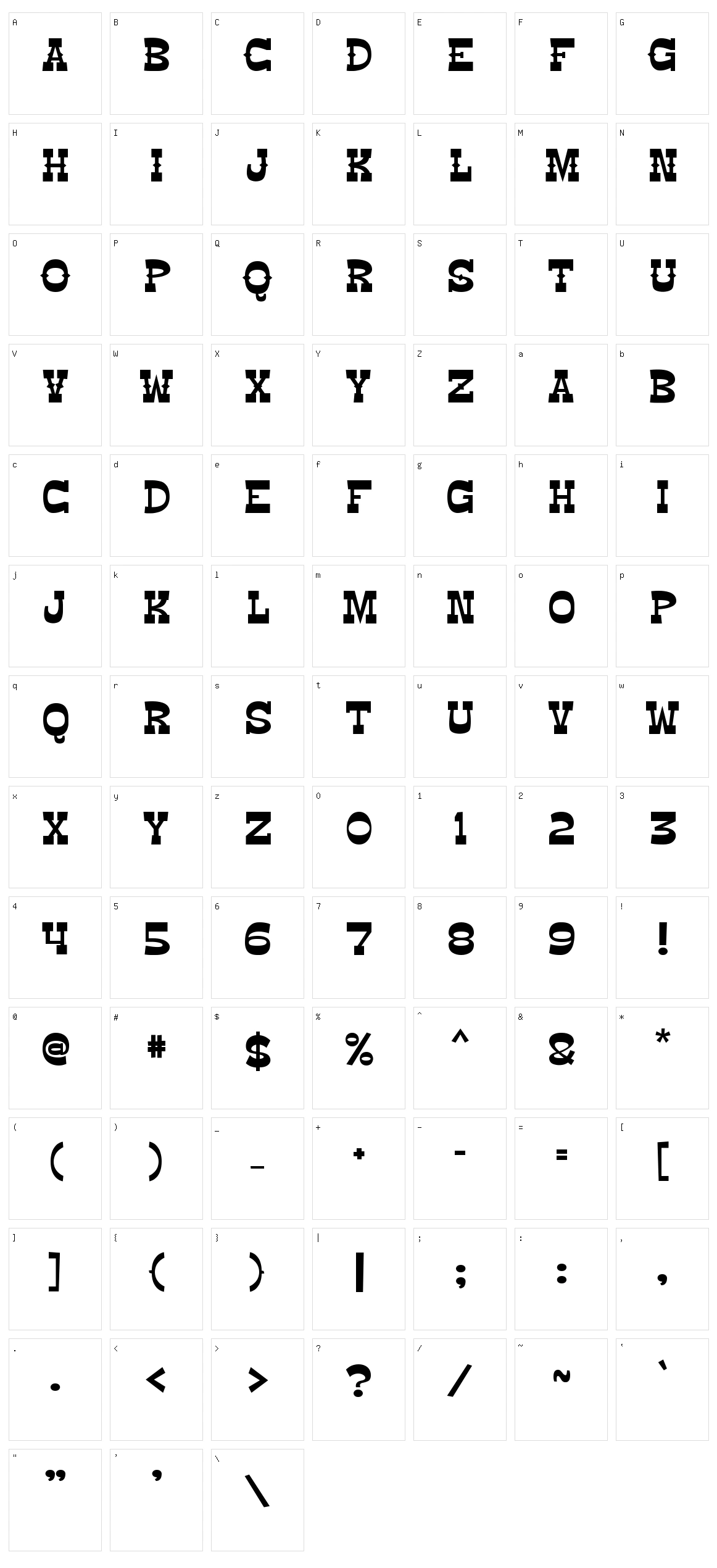
The free font Hilly The Kids is carefully designed by Tokopress, showcasing a thoughtful balance of creativity and usability and falls under the Western font style. When you download the ZIP file, it contains only 10.38 KB of font files, making it lightweight and quick to download. Please review the license details below to understand permitted usage and distribution rights. If license information is not available, we recommend using this font for personal projects only or contacting the author directly for commercial usage permissions.